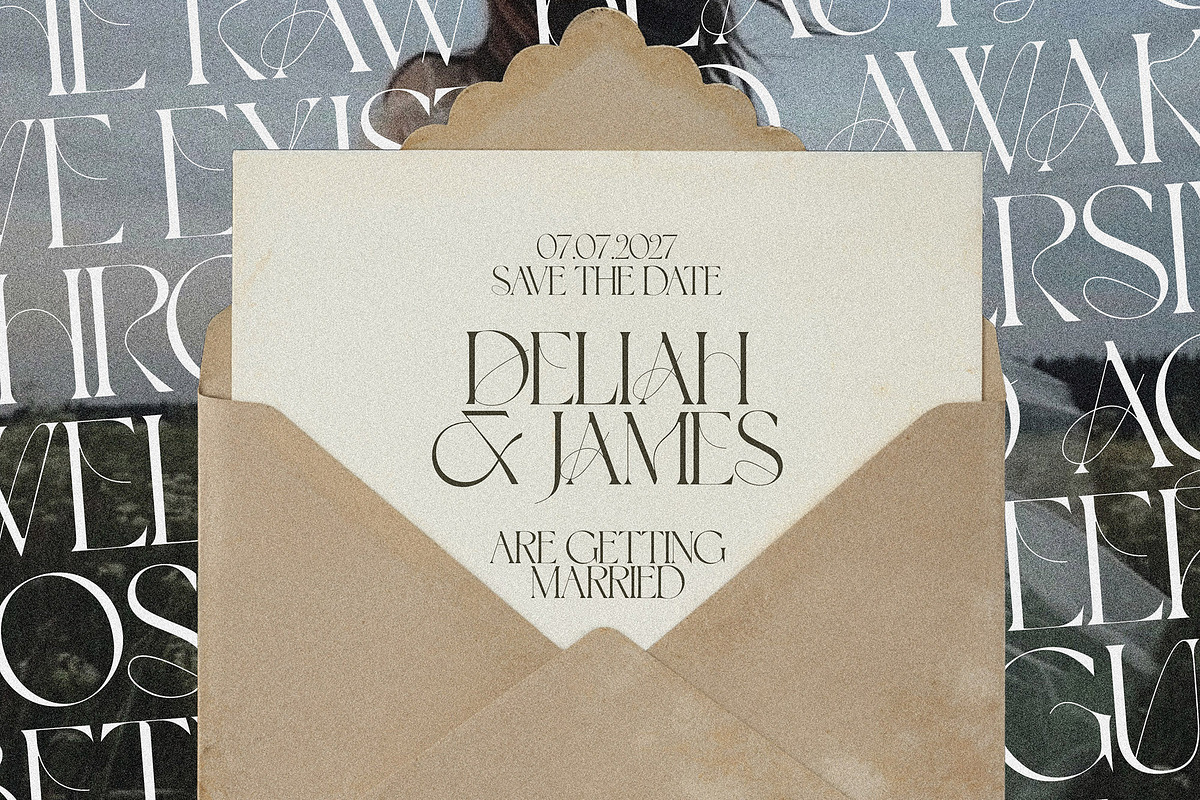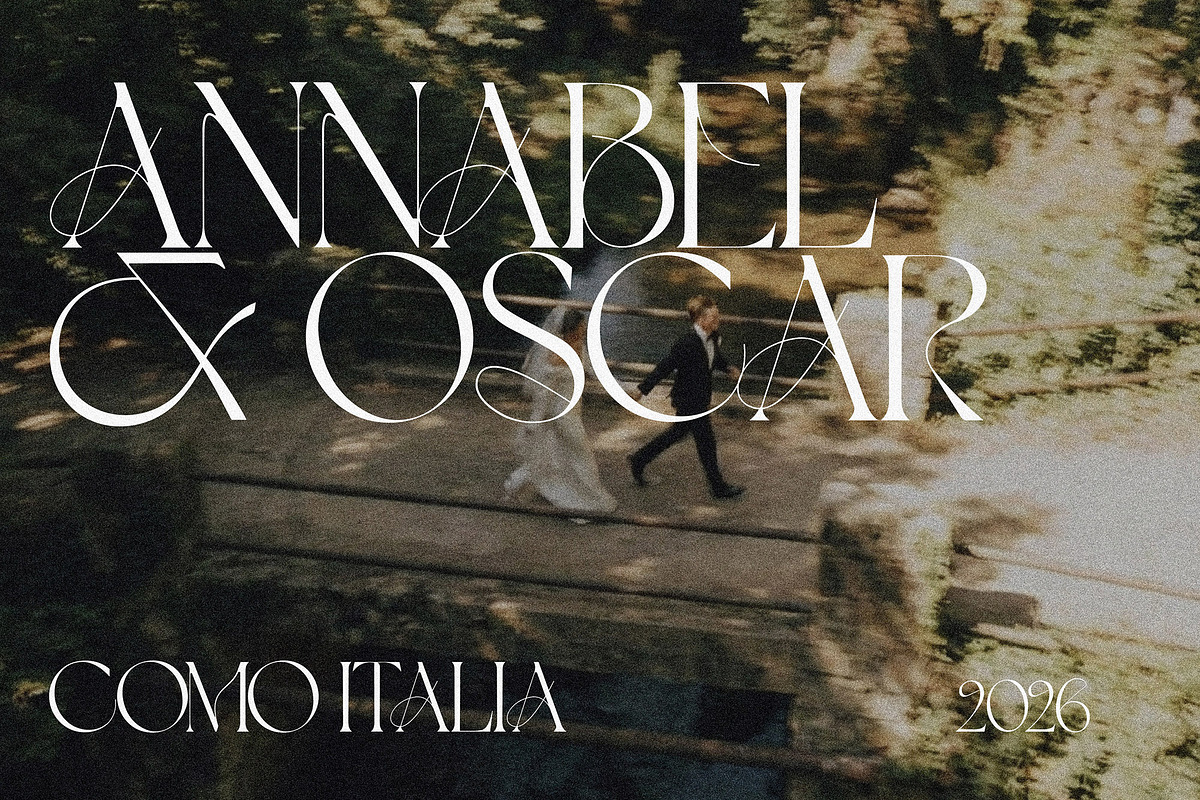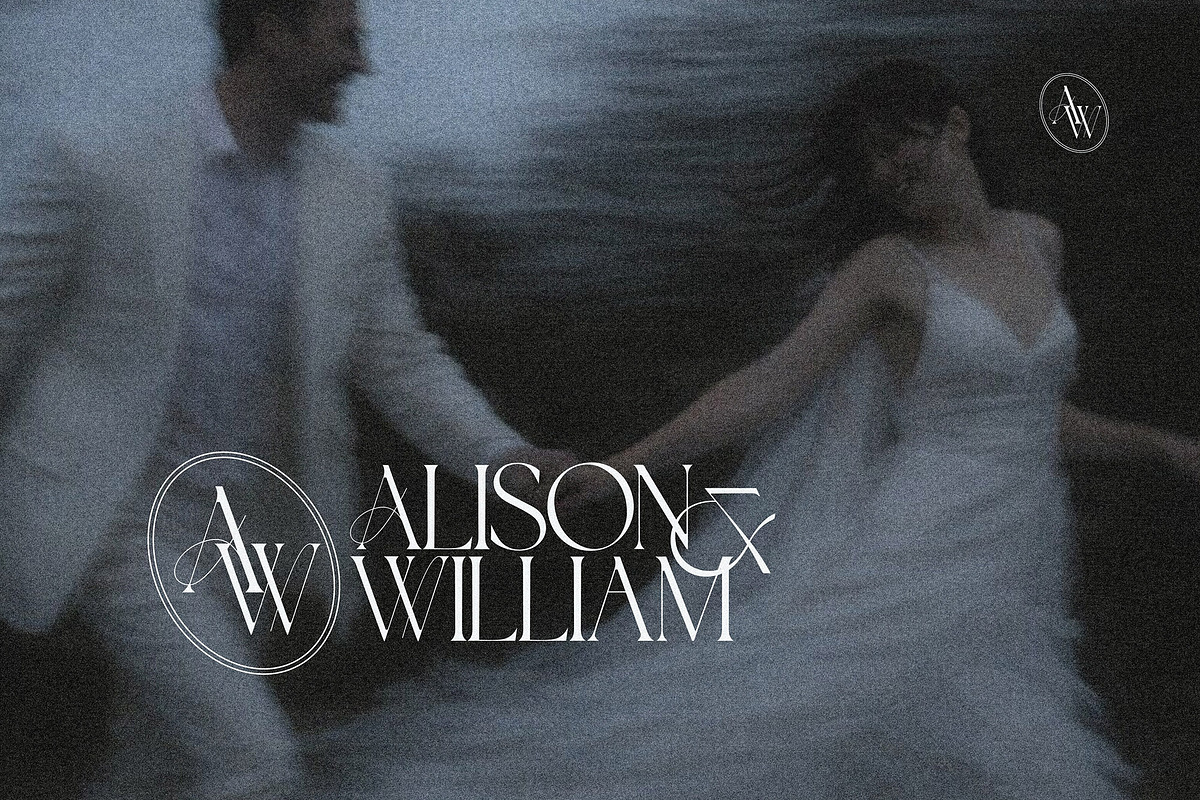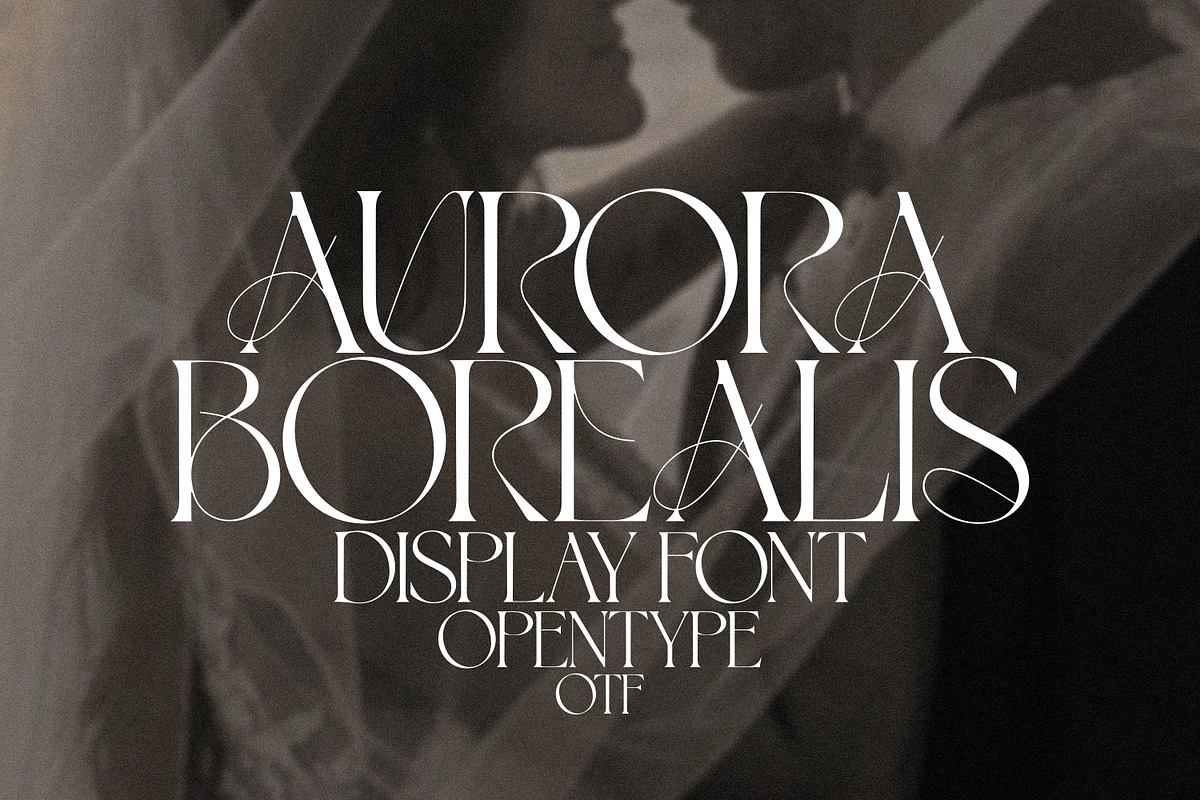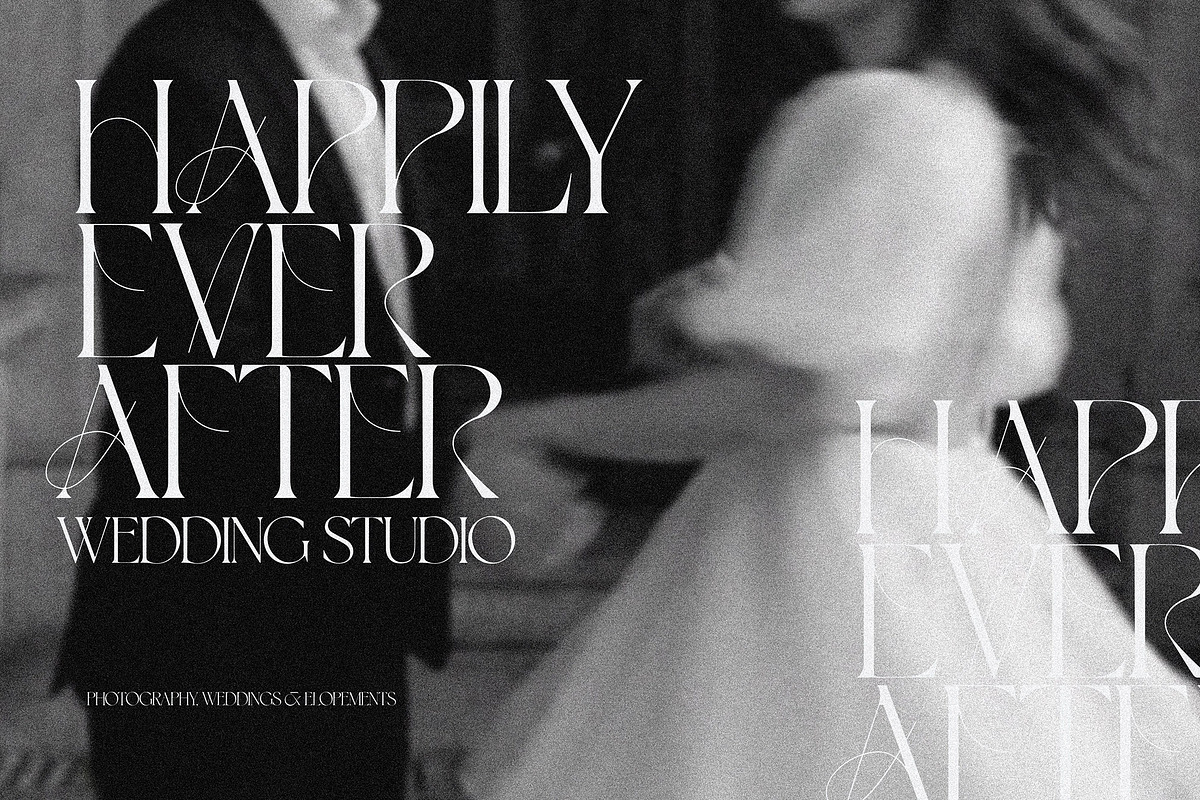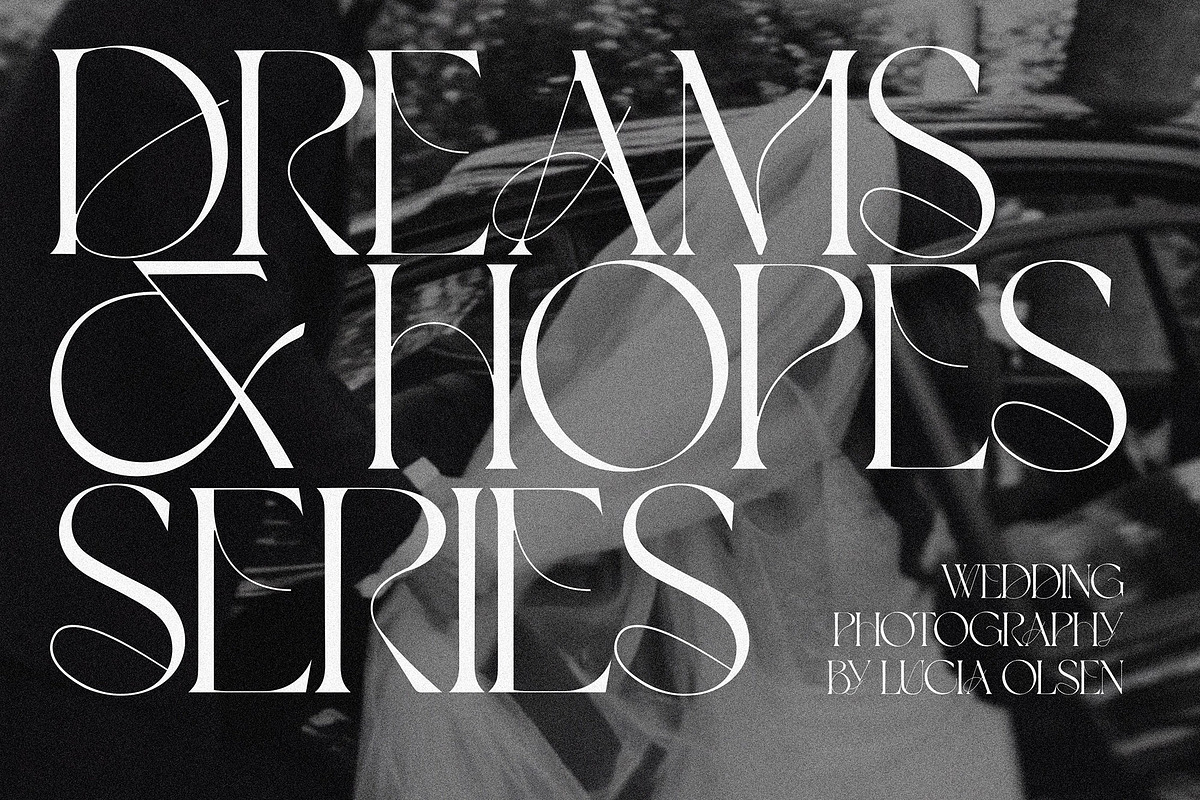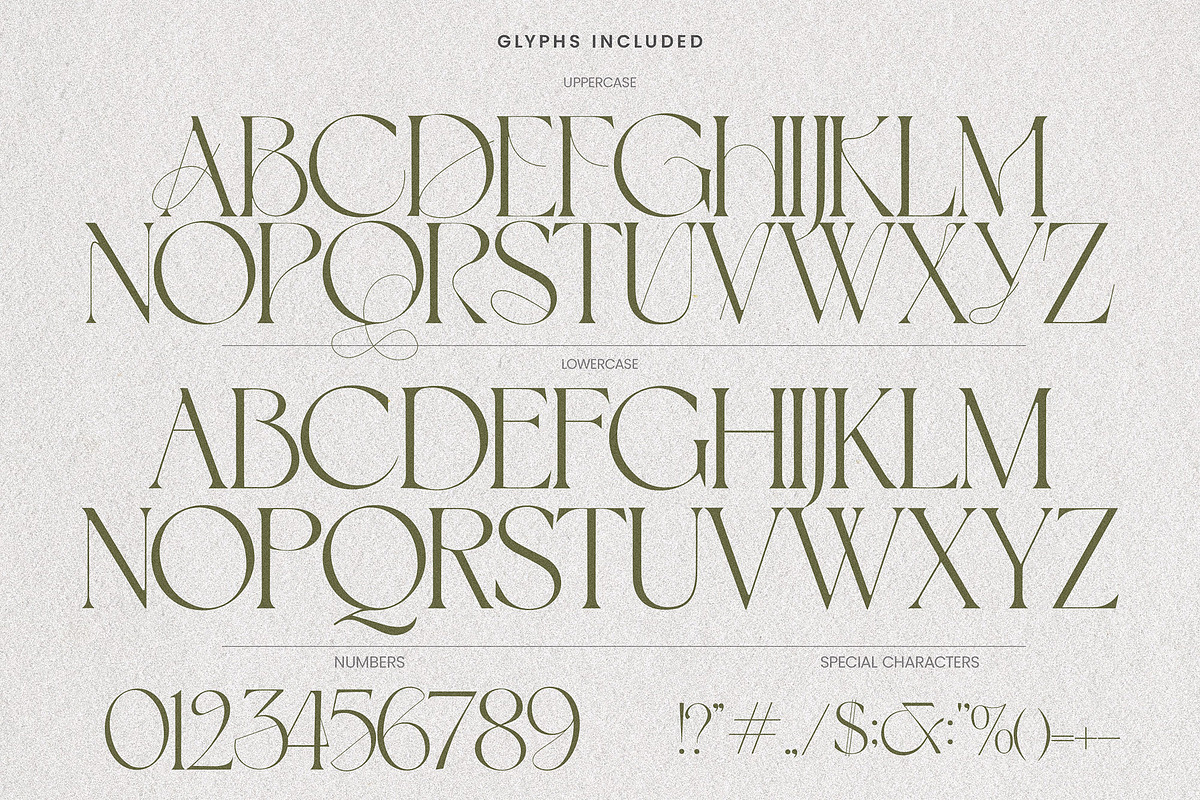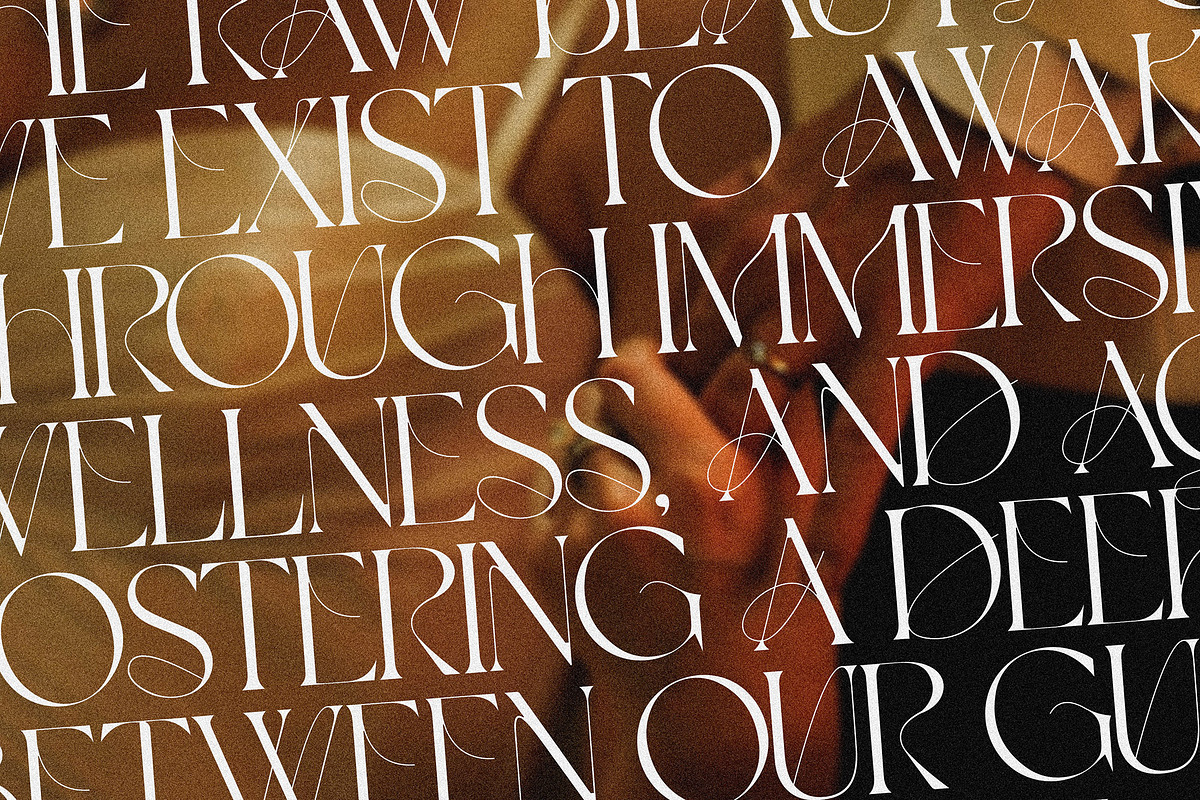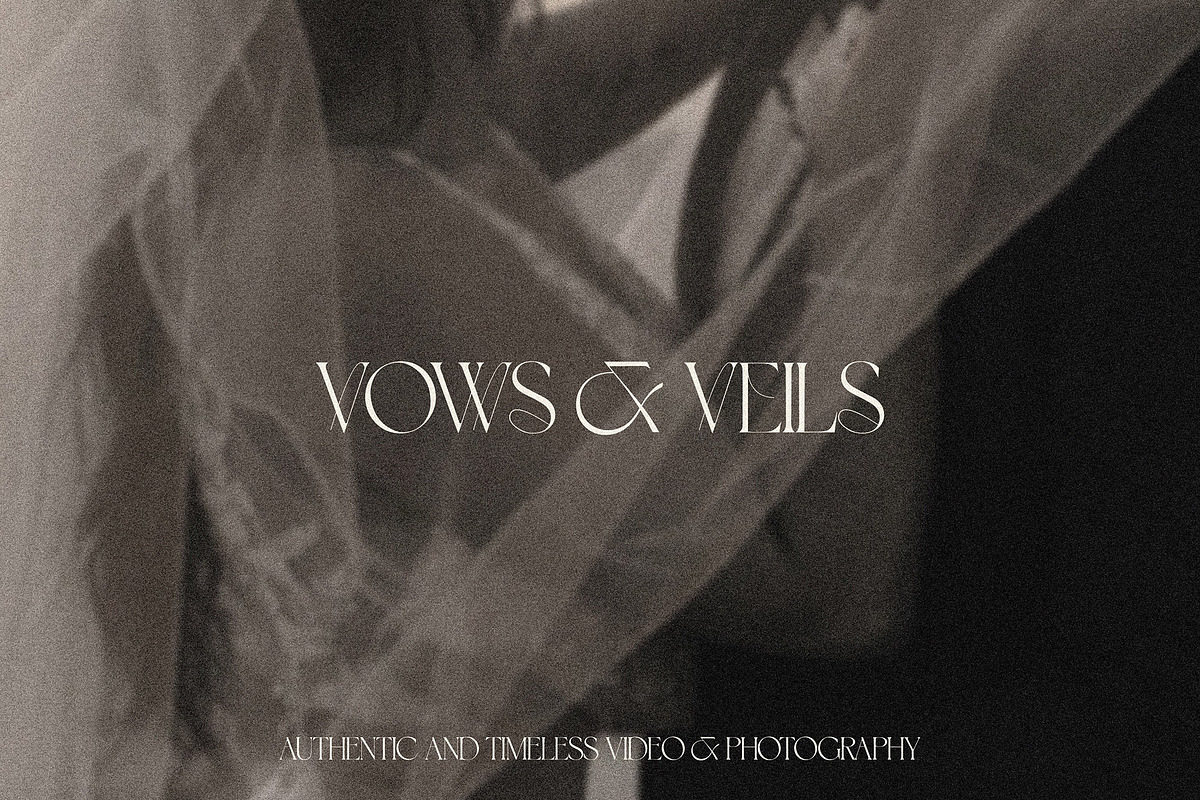
Aurora Borealis - Branding Font
Introducing Aurora Borealis, a luxurious high-contrast serif display font that radiates sophistication and timeless elegance. With its dramatic thin-to-thick stroke contrast, sweeping decorative swashes, and refined letterforms, this typeface commands attention and elevates any design instantly.
Inspired by the graceful movement of the northern lights, Aurora Borealis balances bold editorial presence with delicate, flowing details. Each character is meticulously crafted with elegant ligatures and ornamental flourishes that bring an air of luxury to your creative projects.
This Font Is Perfect For:
- Branding & Logos — luxury brands, beauty lines, fashion labels, jewelry businesses
- Wedding Stationery — invitations, save-the-dates, menus, place cards
- Editorial & Magazine Layouts — headlines, pull quotes, cover titles
- Social Media Graphics — Instagram posts, Pinterest pins, story templates
- Packaging Design — perfume, cosmetics, wine labels, candle branding
- Book Covers & Titles — romance, poetry, literary fiction
- Website Headers — portfolio sites, luxury e-commerce, hospitality brands